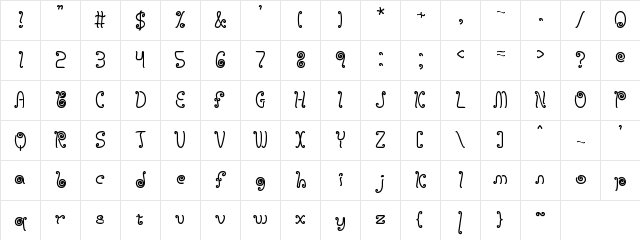
Complete Licorice Strings BRK Normal glyph index. Displaying only characters natively supported by Licorice Strings BRK Normal font.
Licorice Strings BRK is a composed and adaptable typeface that performs quietly and consistently across a wide range of design contexts.